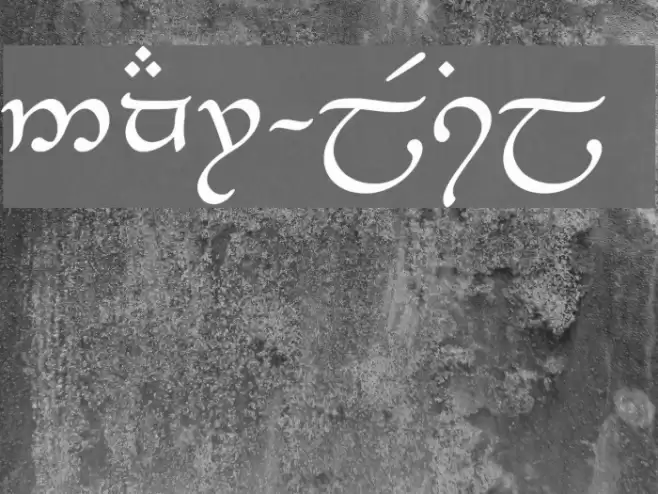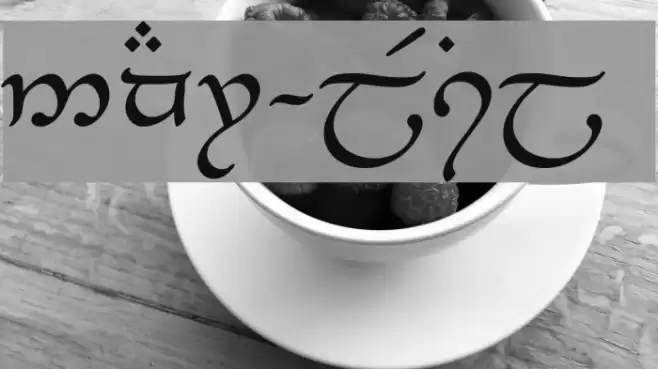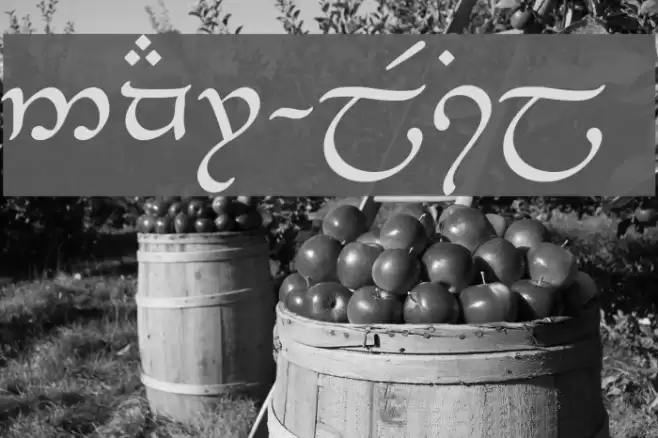
Tengwar-Elesil Font
Tengwar-Elesil Description
This font is inspired by the elegant and flowing script of Tengwar, a fictional script created by J.R.R. Tolkien. It features graceful curves and intricate details that give it a mystical and ancient appearance. The characters are designed with a high level of artistry, incorporating both sharp and smooth lines that create a harmonious balance. This font is ideal for projects that require a touch of fantasy or a connection to Tolkien's world, such as book covers, fantasy-themed events, or artistic projects. Its unique style makes it stand out, capturing the imagination with its otherworldly charm.
A mystical and elegant script inspired by Tolkien's Tengwar, perfect for fantasy themes from Uncategorized fonts.
- Proposed Projects: Book covers, fantasy-themed events, artistic projects, game design, and decorative purposes.
- Use Case: Logos, Decorative text, Artistic projects